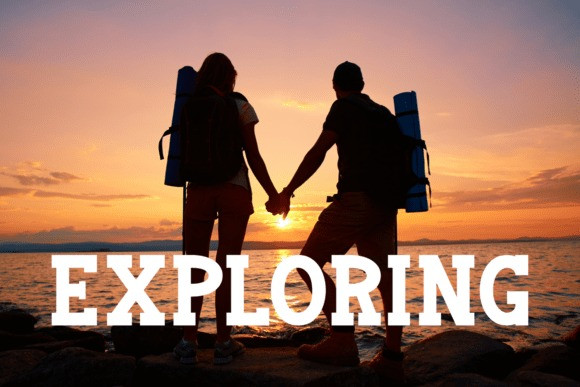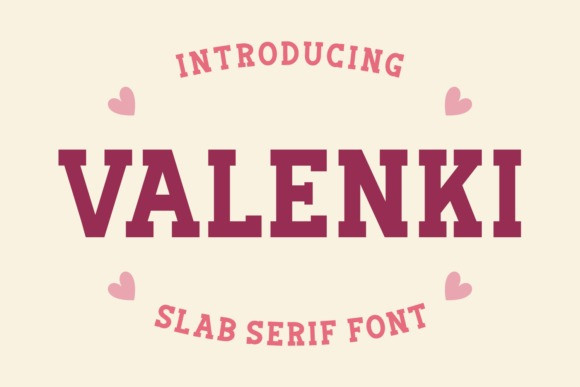
Valenki Font
Valenki Font a bold and energeticslab serif font designed with a romantic and playful personality. I’ts an ideal choice for mug designs, pillow designs, t-shirts, tote bags, greeting cards, posters, invitations, stickers, packaging, Valentine’s Day marketing, and crafting projects.